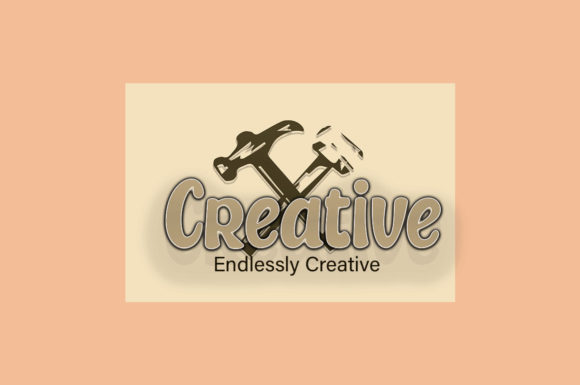
Pink Balloon is a thick-lettered yet relaxed display font. Suitable for a wide variety of designs due to its neat and simple style, this font has the potential to become your favorite go-to font, no matter the occasion!
Pink Balloon Font